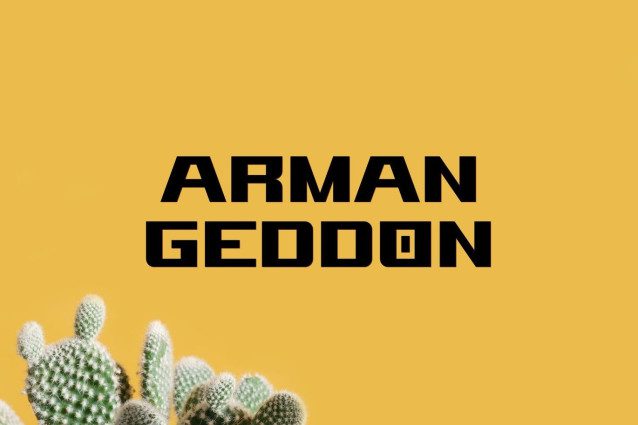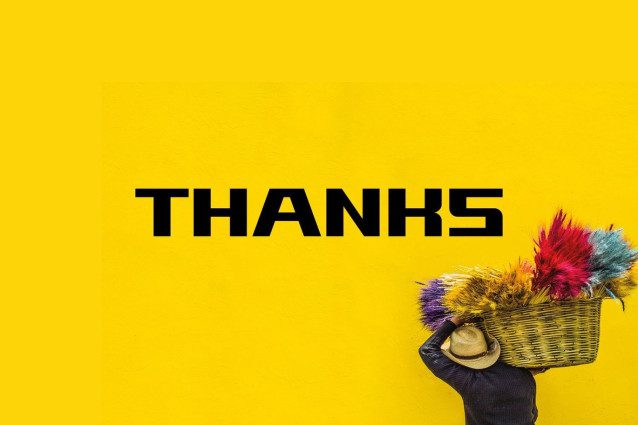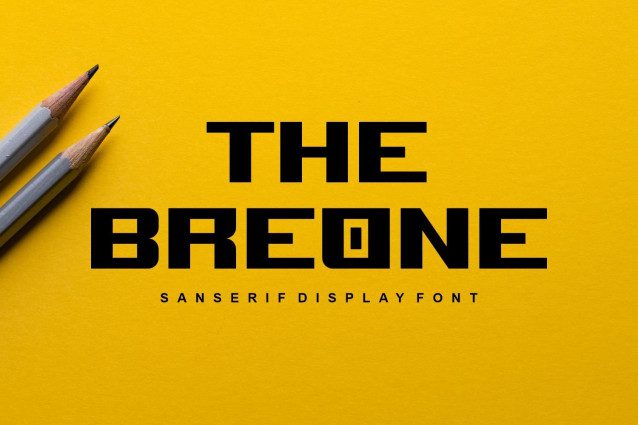
The Breone font
The Breone font a strong, confident and powerful typeface designed to suit sports logos, club branding, apparel applications, labels and more.